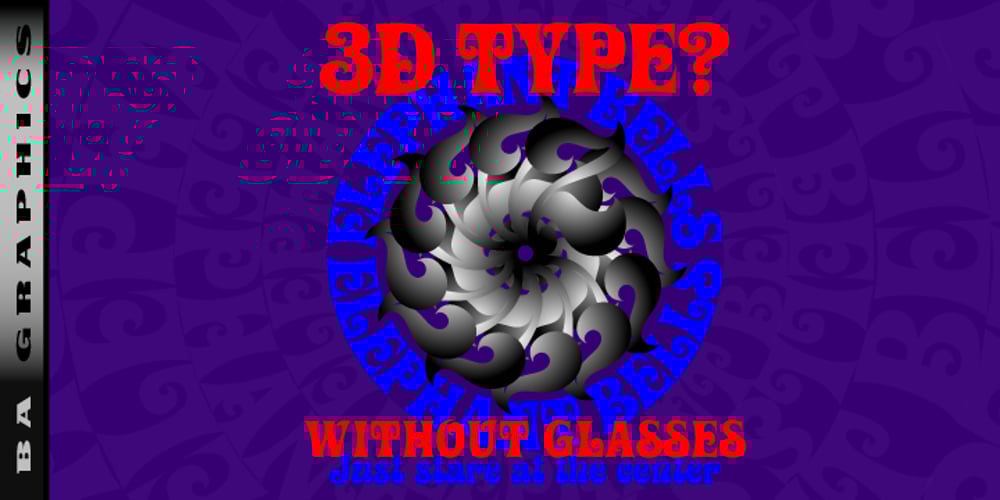
Elephant Bells
Elephant Bells font
Elephant Bells Font Family was designed by Bob Alonso and published by BA Graphics. Elephant Bells contains 1 styles and family package options. This 60’s 70’s design has a great nostalgic look. It appears to flourish within itself.